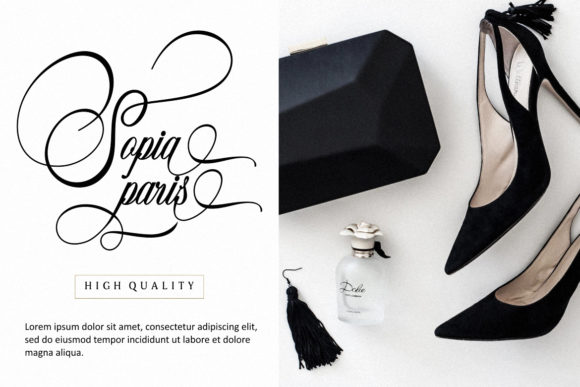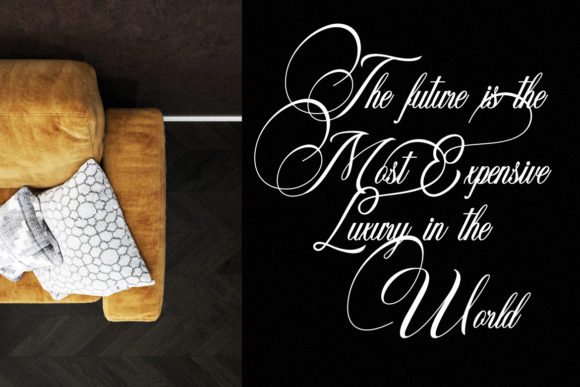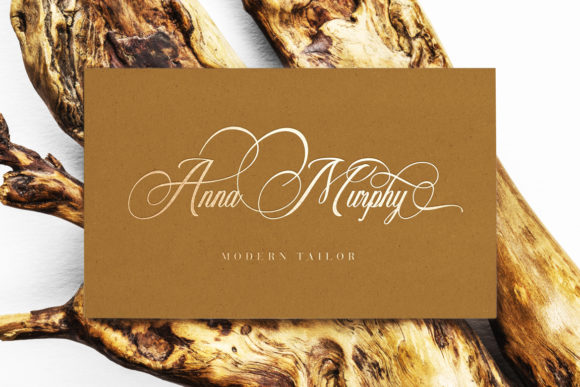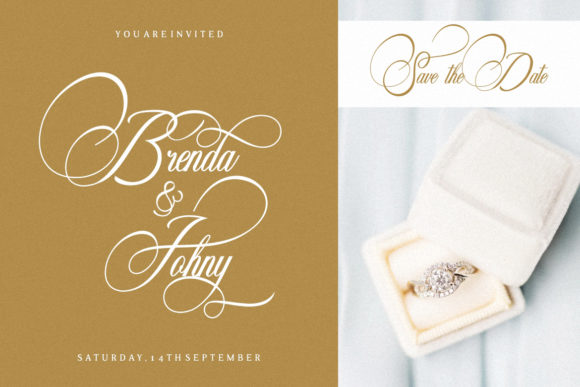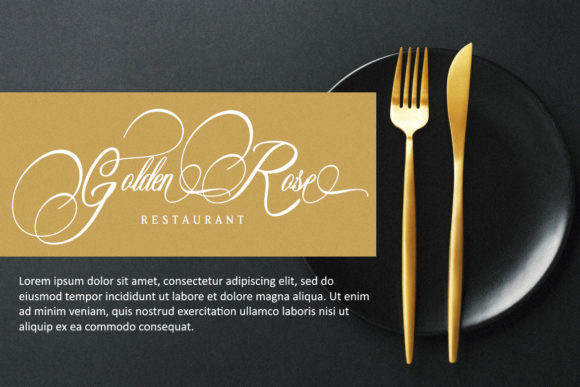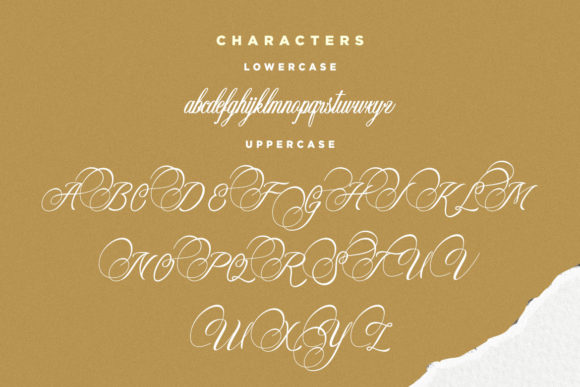
The Amorista Font: A Luxurious Script to Elevate Your Designs
I’ll never forget the moment I stumbled upon the Amorista font. I was working on a branding project for a high-end boutique, and I was struggling to find the perfect script to capture the essence of their luxury brand. The client wanted something sophisticated, elegant, and eye-catching – and I was determined to deliver. That’s when I discovered Amorista, a stunning script font that exceeded my expectations in every way.
So, what makes Amorista so special? Let’s dive into the good stuff! 😊
- ✨ Luxurious and sophisticated design: Amorista boasts a beautiful, flowing script that’s perfect for high-end branding, packaging, and marketing materials.
- ✅ PUA encoded for easy access: The font is PUA (Private Use Area) encoded, making it easy to access all the magical glyphs and swashes.
- ✅ Alternate glyphs and ligatures: Amorista features a wealth of special features, including alternate glyphs and ligatures, to add more personality to your designs.
Now, I’m not going to sugarcoat it – there are a few minor quirks to be aware of:
- 🤔 Some swashes may require manual adjustment: Depending on the design, you might need to tweak the swashes to get the perfect fit.
- ⚠️ Not all platforms support OpenType features: This might limit the font’s capabilities on certain platforms or software.
The Story Behind Amorista
While the true story behind Amorista’s creation remains a mystery, it’s easy to imagine that the designer was inspired by the romance and elegance of 18th-century calligraphy. With its luxurious feel and sophisticated lines, Amorista is the perfect font for designers who want to add a touch of classic glamour to their work.
| Is Amorista suitable for body text? | No, Amorista is best used for headlines, titles, and short paragraphs. Its luxurious feel and intricate details make it less suitable for long-form text. |
| Does Amorista support multiple languages? | Amorista supports the basic Latin character set. If you need to use it for non-Latin languages, you may need to make adjustments or use a different font. |